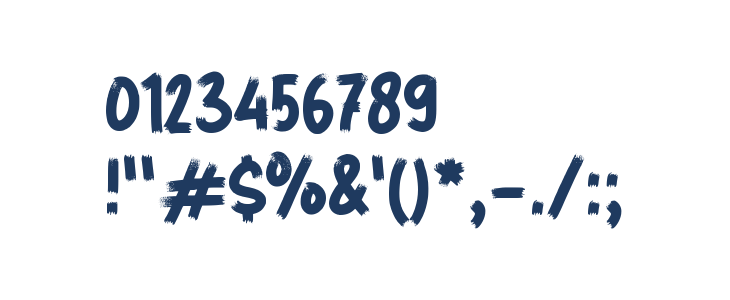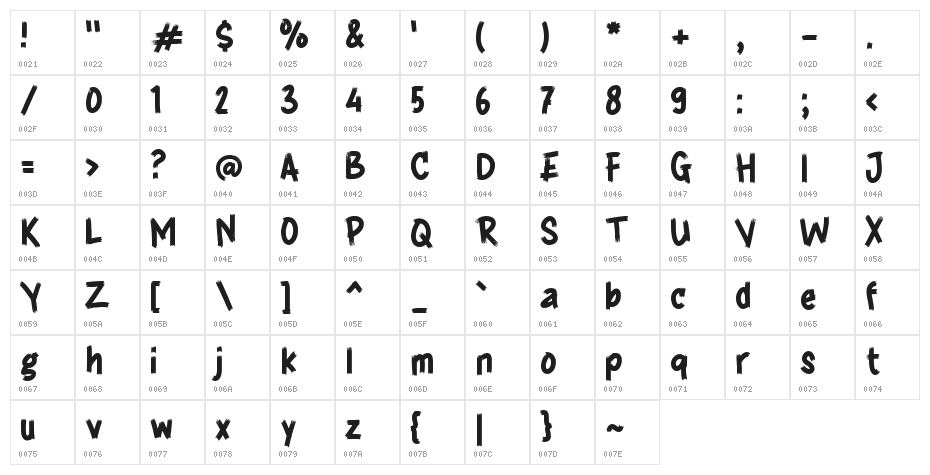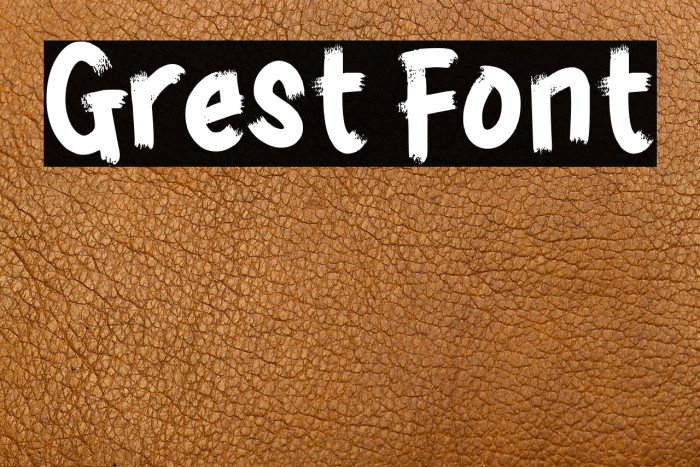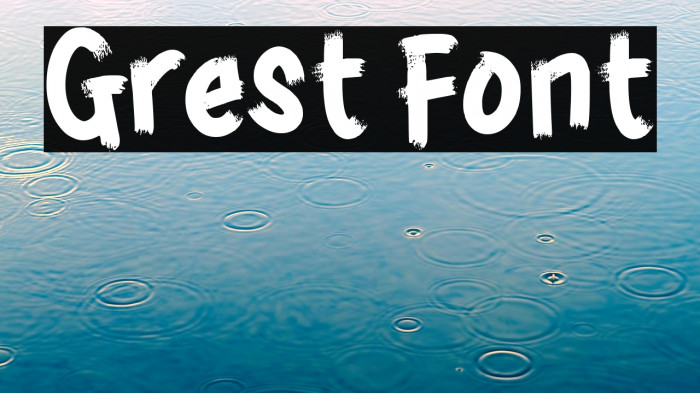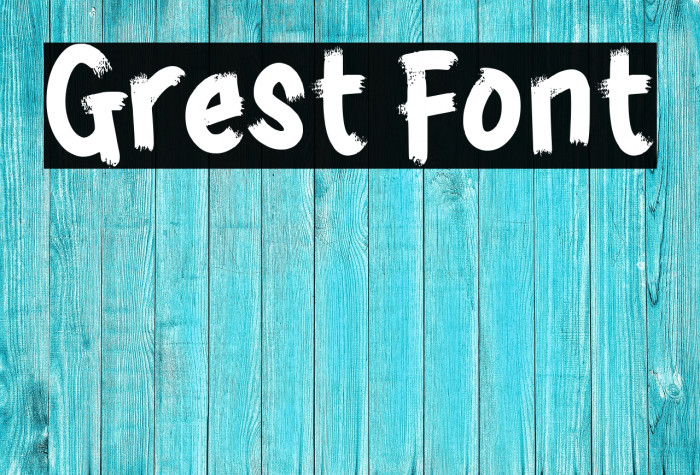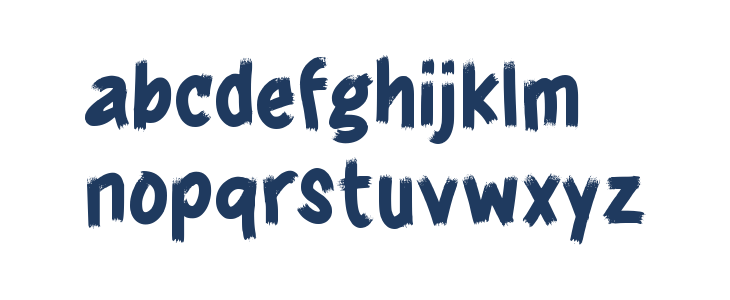
Grest Font
Grest Description
This font features a bold and expressive style, characterized by its brush-like strokes and slightly irregular edges, giving it a dynamic and energetic appearance. The uppercase and lowercase letters maintain a consistent height, while the numbers and special characters are designed to complement the overall aesthetic. The font's playful and artistic nature makes it suitable for creative projects that require a touch of personality and flair. Its unique texture and bold presence make it stand out, ideal for capturing attention in various design contexts.
| Overall Style | Modern, Artistic |
| Proposed Projects | Ideal for posters, branding, social media graphics, and any project needing a bold, artistic touch. |